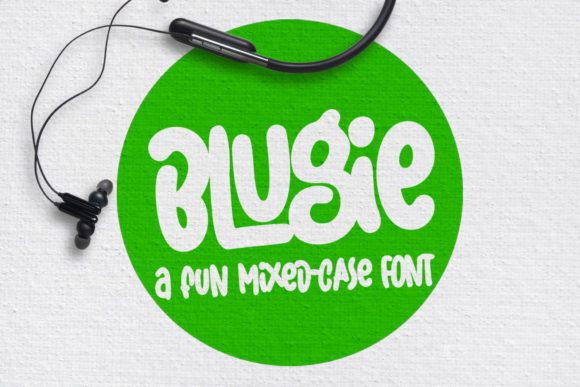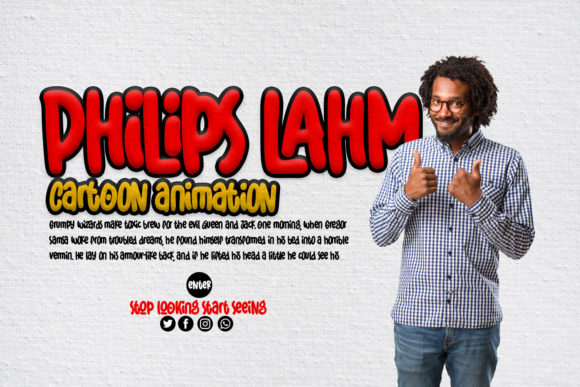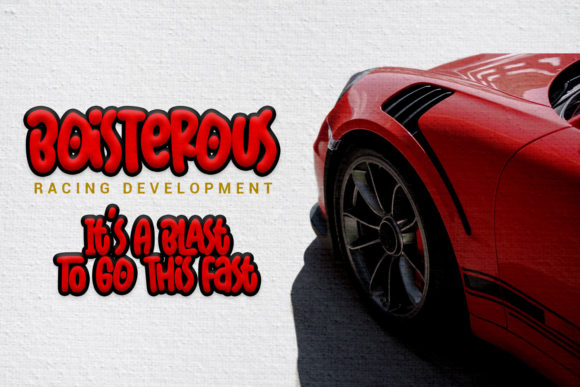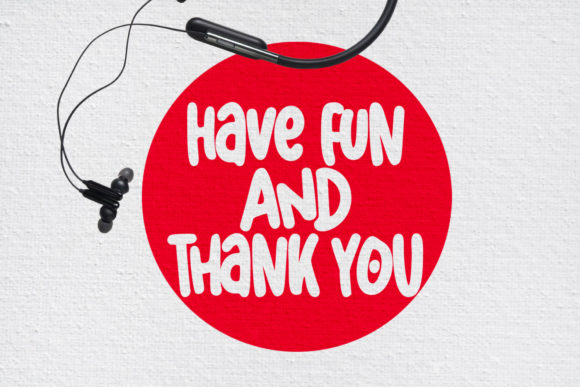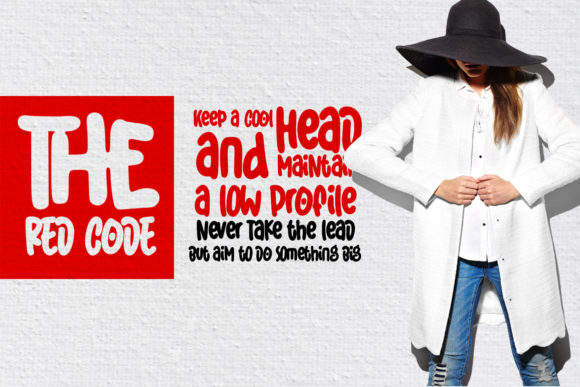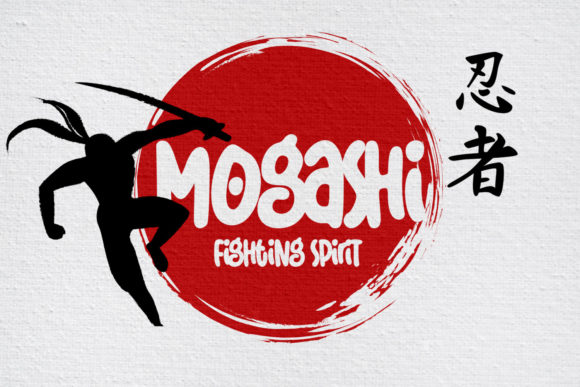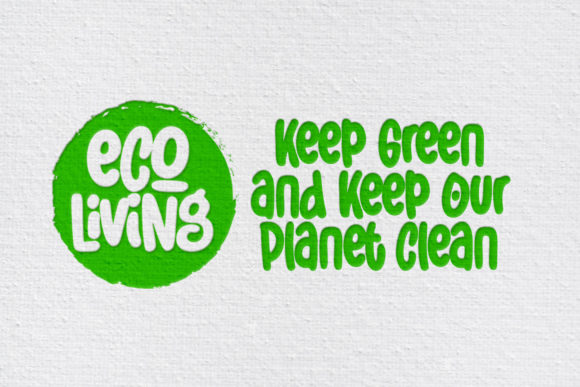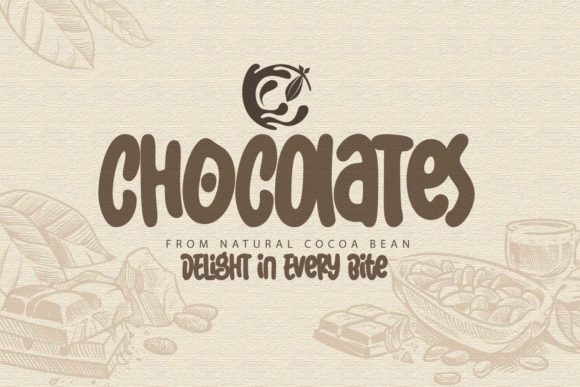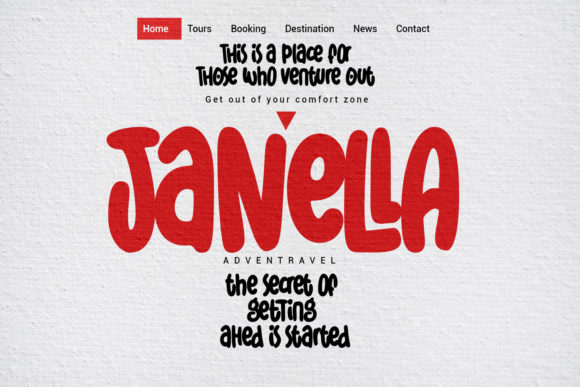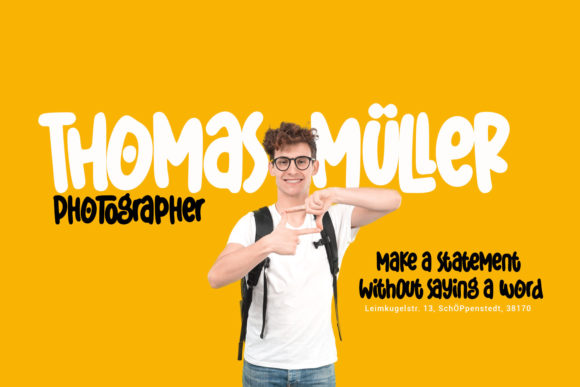
Blugie Font
About Blugie Font
Blugie is a fun and playful handwritten font with a quirky vibe. It will add loads of personality to any crafting project!